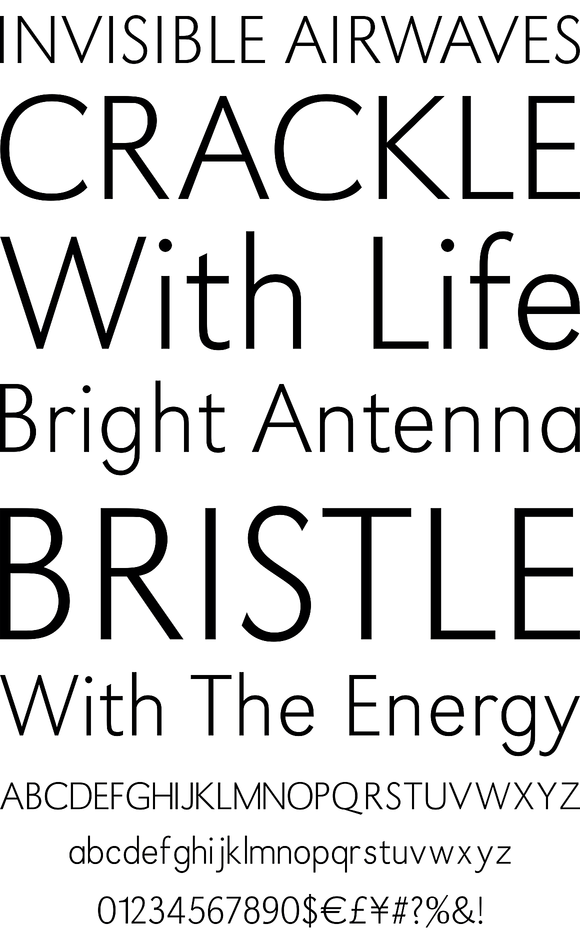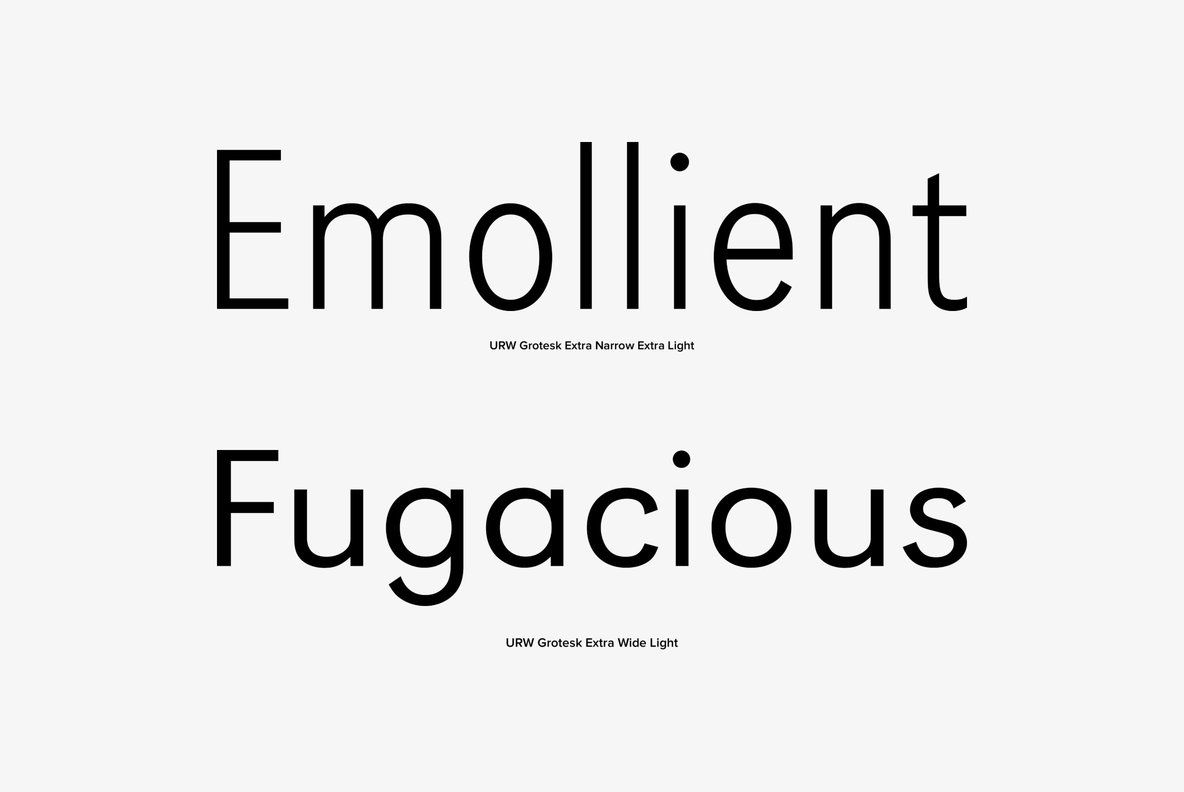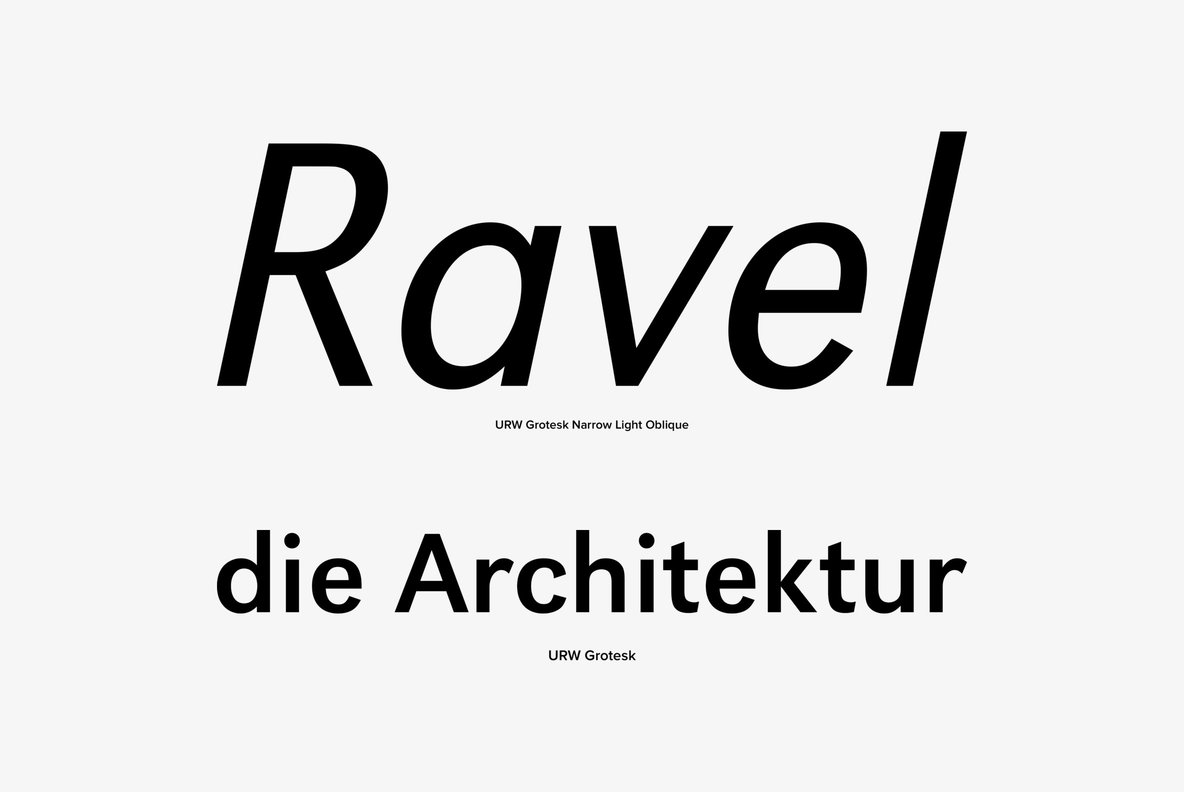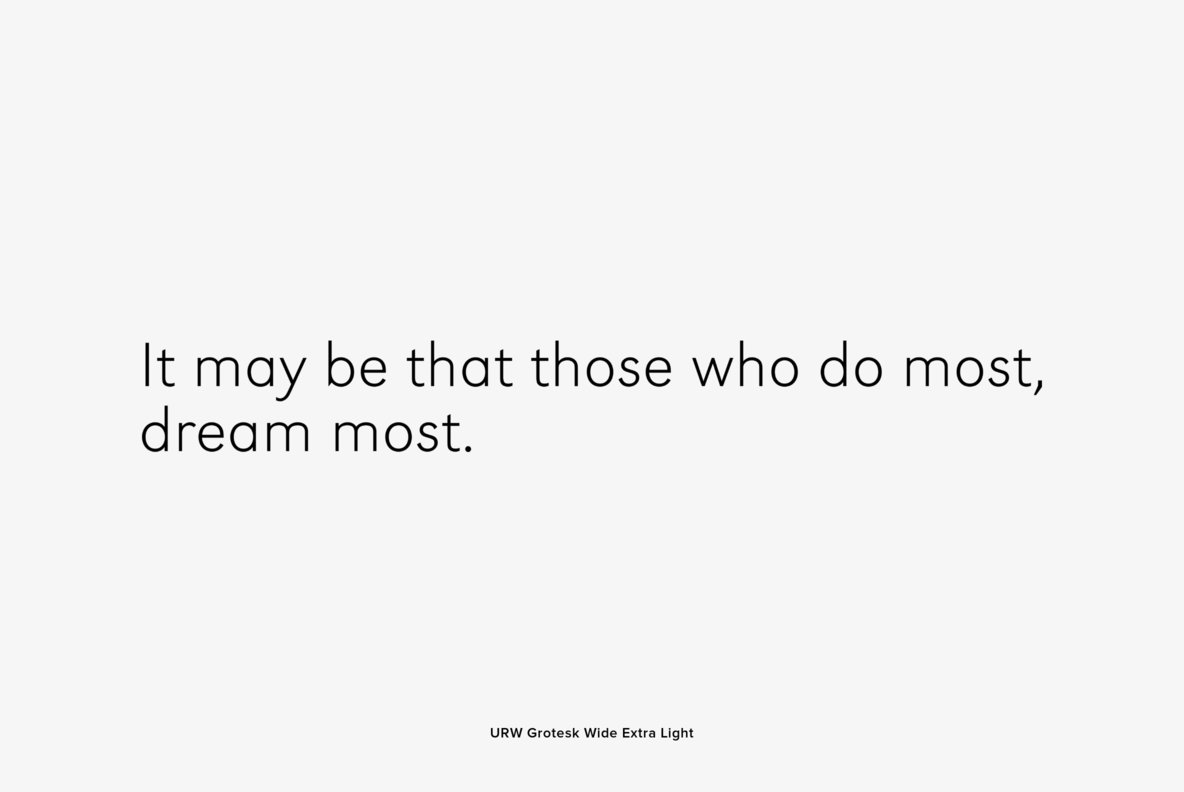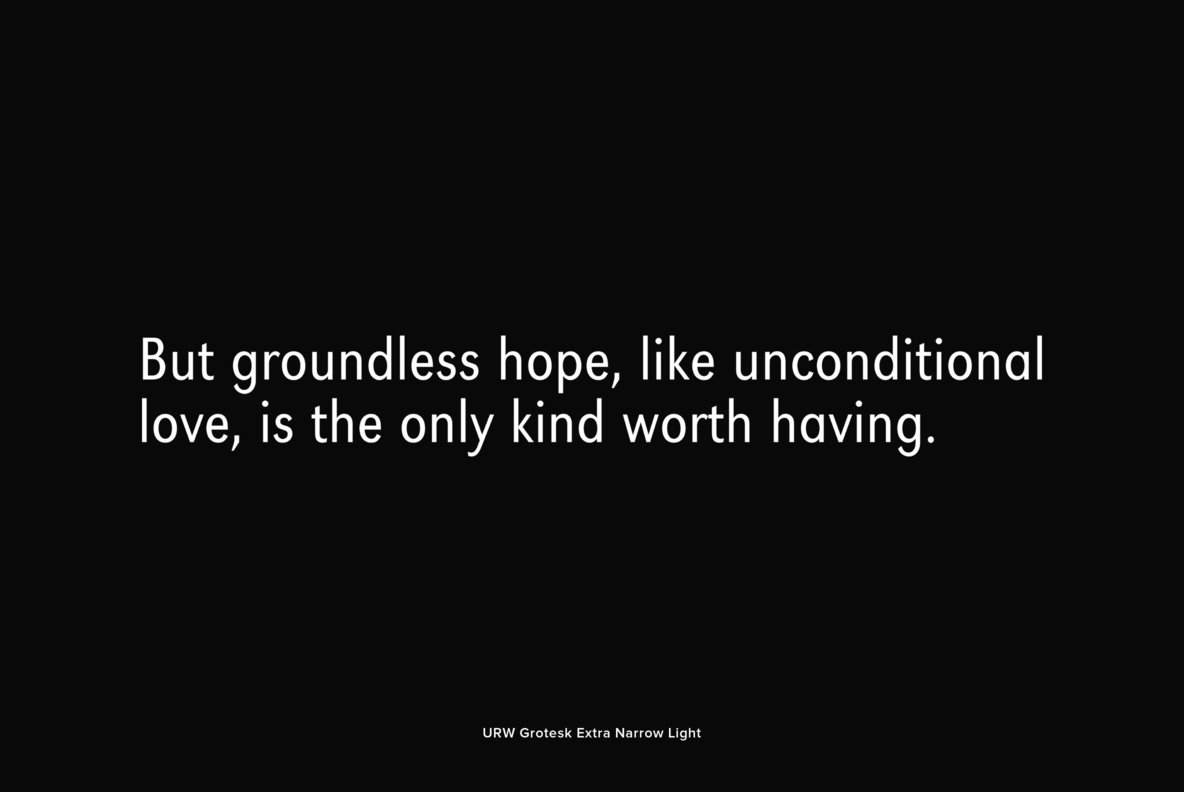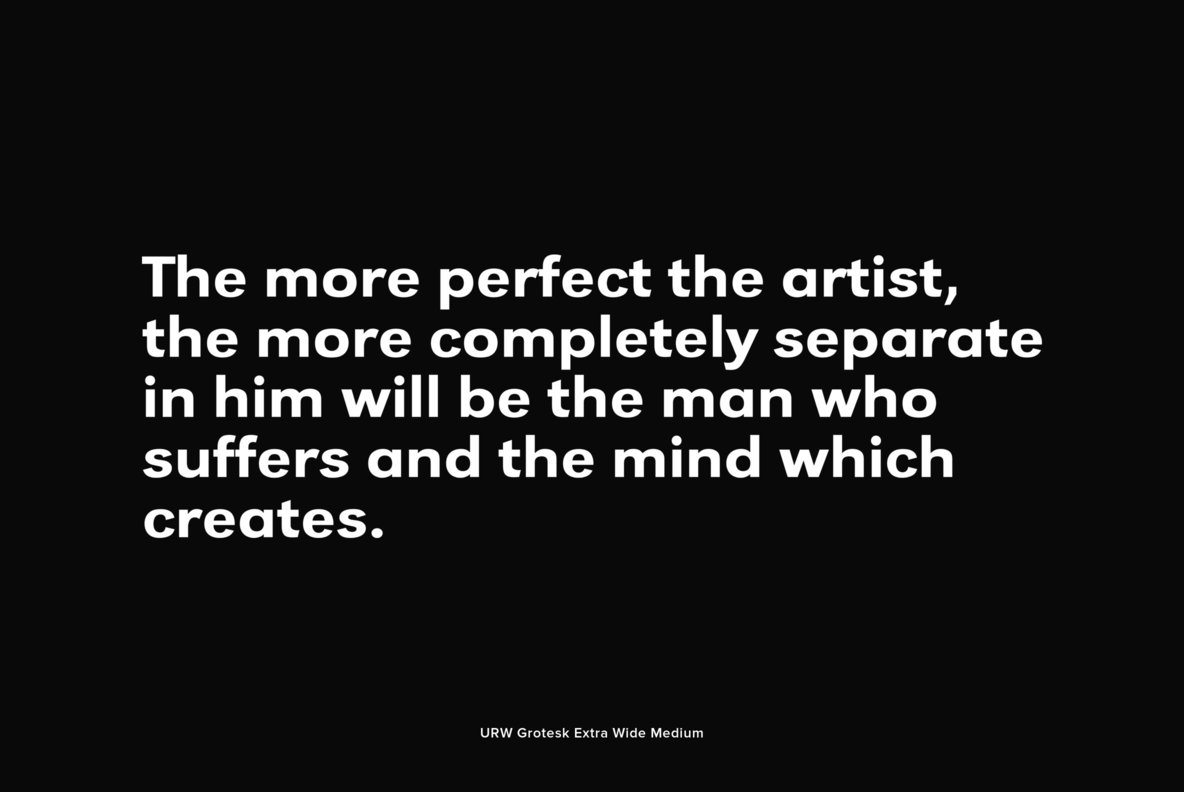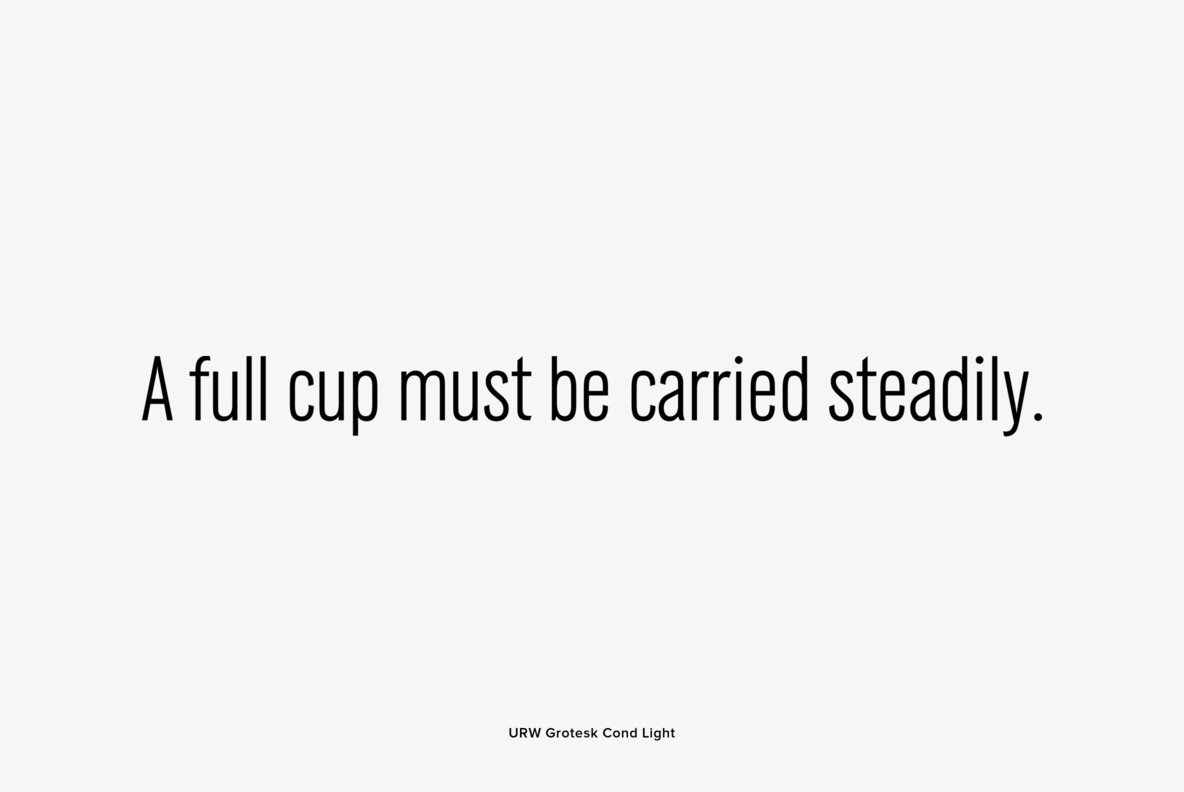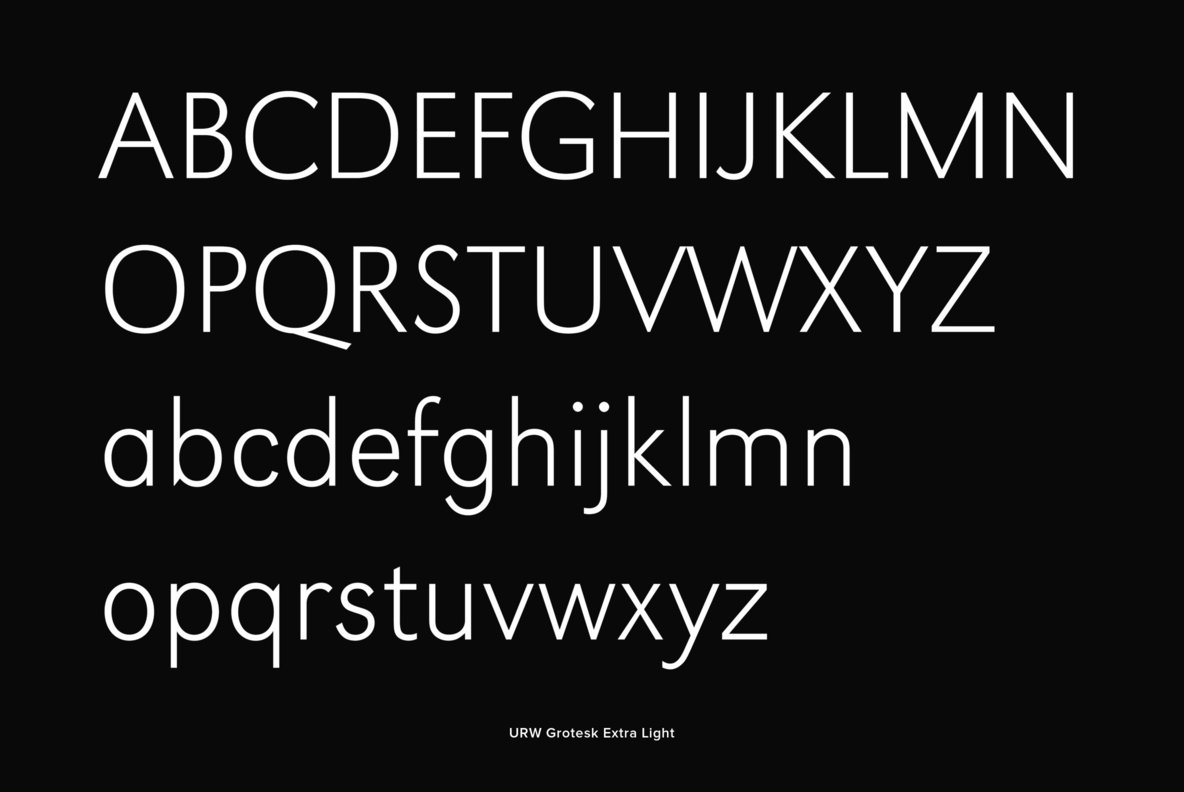
URW Grotesk
URW Grotesk was designed exclusively for URW by Prof. Hermann Zapf in 1985. At the same time, Zapf designed URW Antiqua to go with URW Grotesk. At that time, we were working with a large German publishing house (Axel Springer) on type design solutions to replace certain of their newspaper fonts. Test pages of large German newspapers (e.g. Bildzeitung) were printed with URW Grotesk and URW Antiqua font families. For reasons not disclosed to us, the project was dropped and Springer never used URW Grotesk and URW Antiqua for that purpose.
Anyway, Zapf finished his designs and URW produced both families. Zapf's intention for the two typefaces was to design two highly legible, open and classical fonts that could be used for any kind of typography, especially books, newspapers, magazines, etc.
However, we realized later on, that URW Grotesk is very well suited for multi media applications on screen.